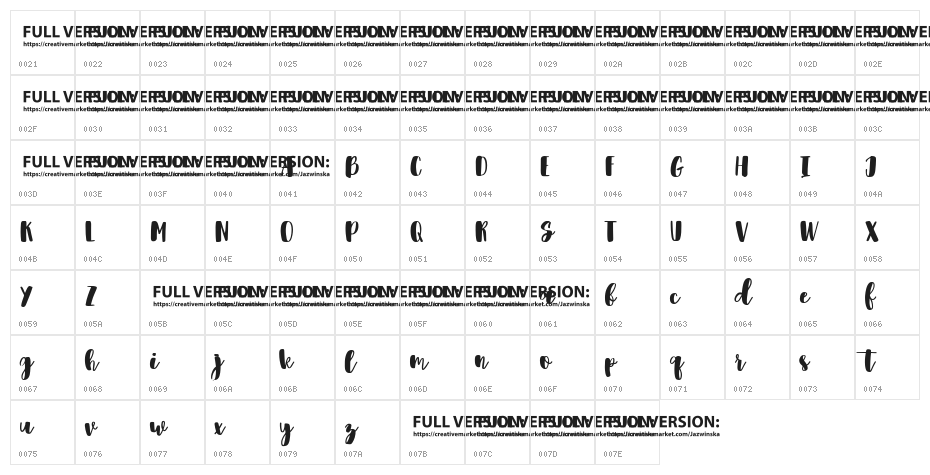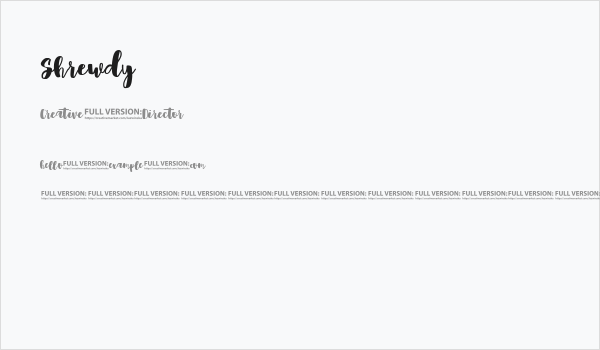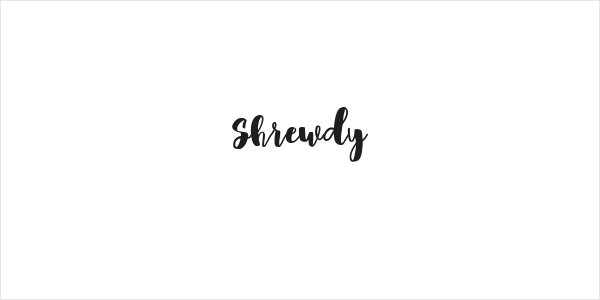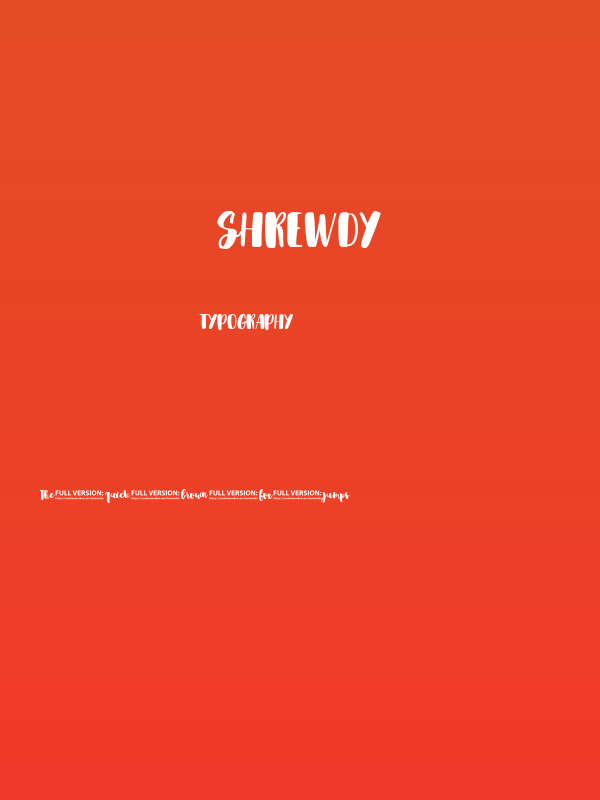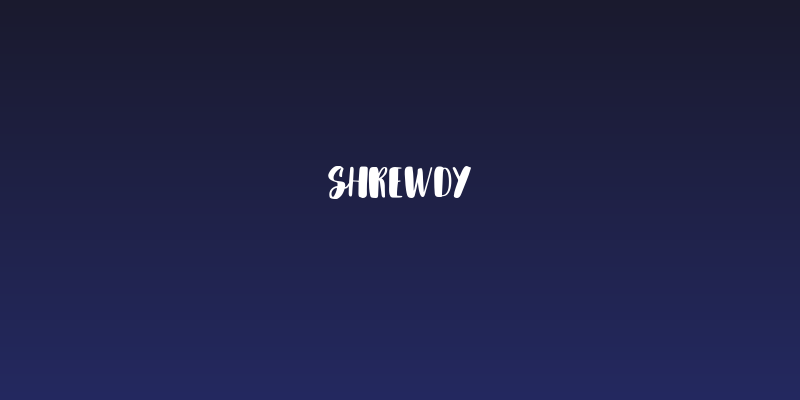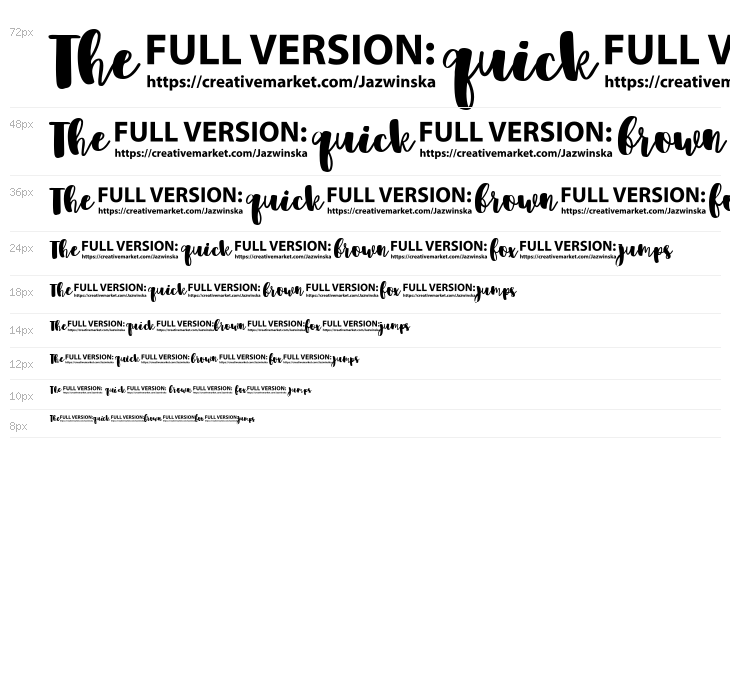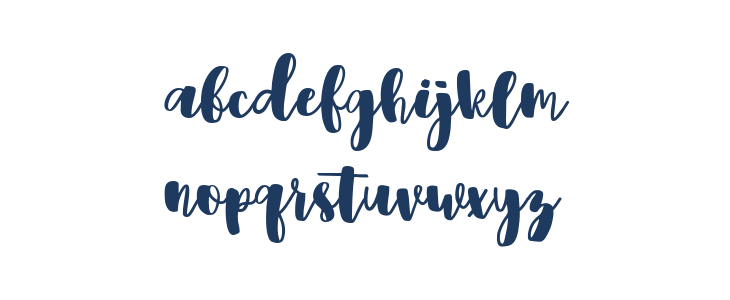
Shrewdy Font
Shrewdy Description
This font features a bold and expressive style with a handwritten appearance. The uppercase letters are robust and slightly condensed, giving a strong presence, while the lowercase letters maintain a fluid and cursive quality. The strokes are thick and consistent, providing a uniform look across all characters. The font's playful and artistic nature makes it suitable for creative projects. It has a modern flair with a touch of elegance, making it versatile for various design needs.